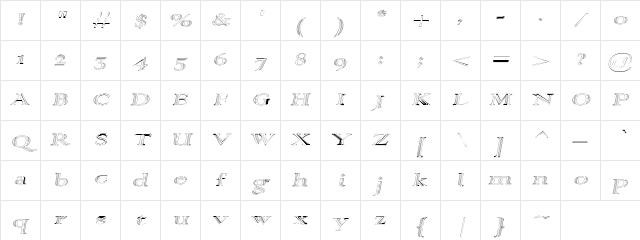
AlphaRev Hollow Regular Free Font
AlphaRev Hollow Regular
AlphaRev Hollow Family
AlphaRev Hollow Regular
Design Context for AlphaRev Hollow
AlphaRev Hollow is a composed and adaptable typeface that performs quietly and consistently across a wide range of design contexts.